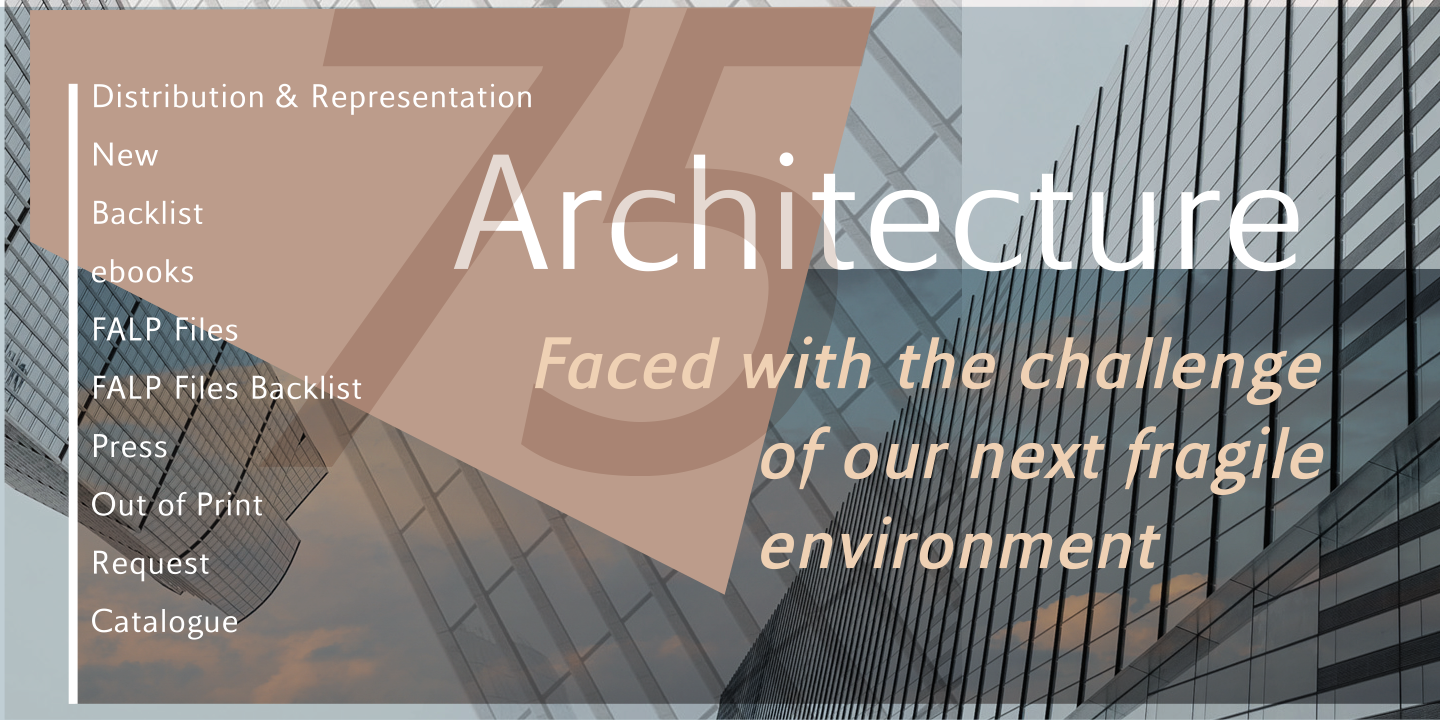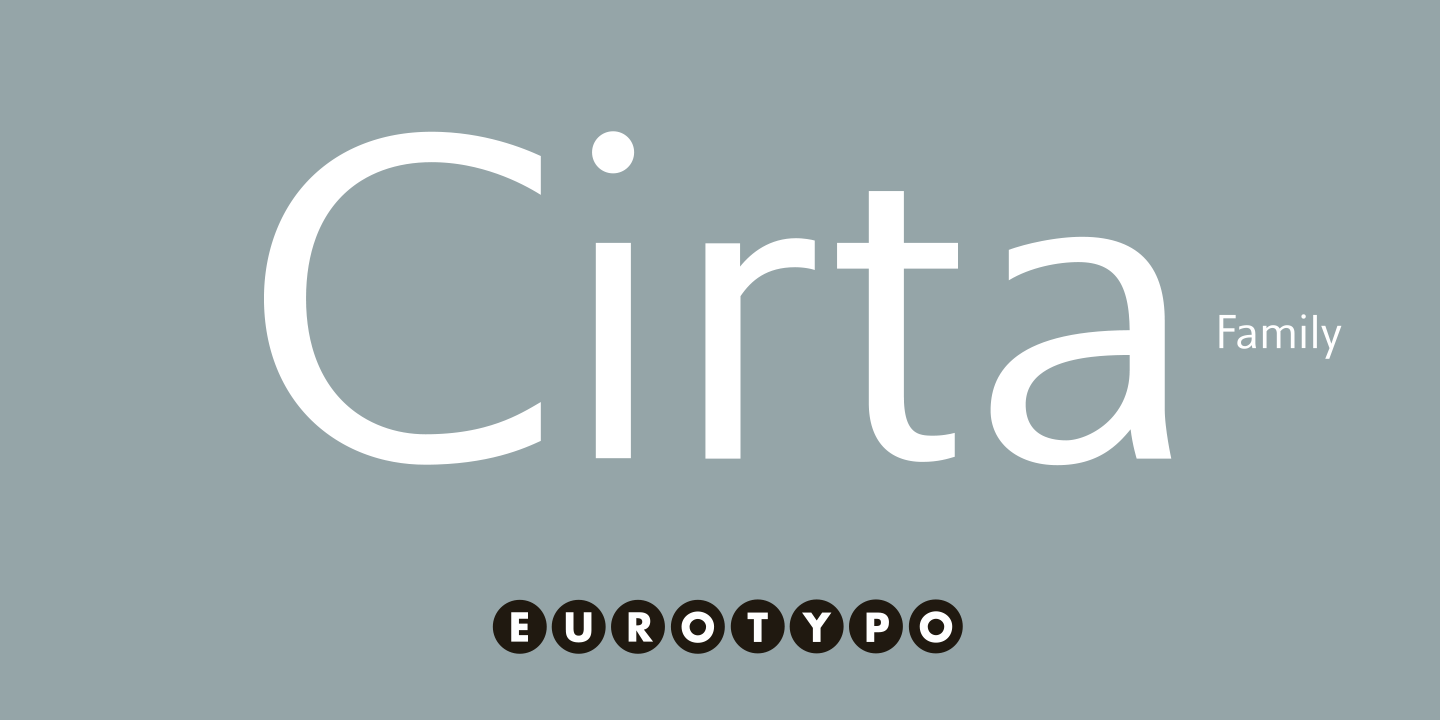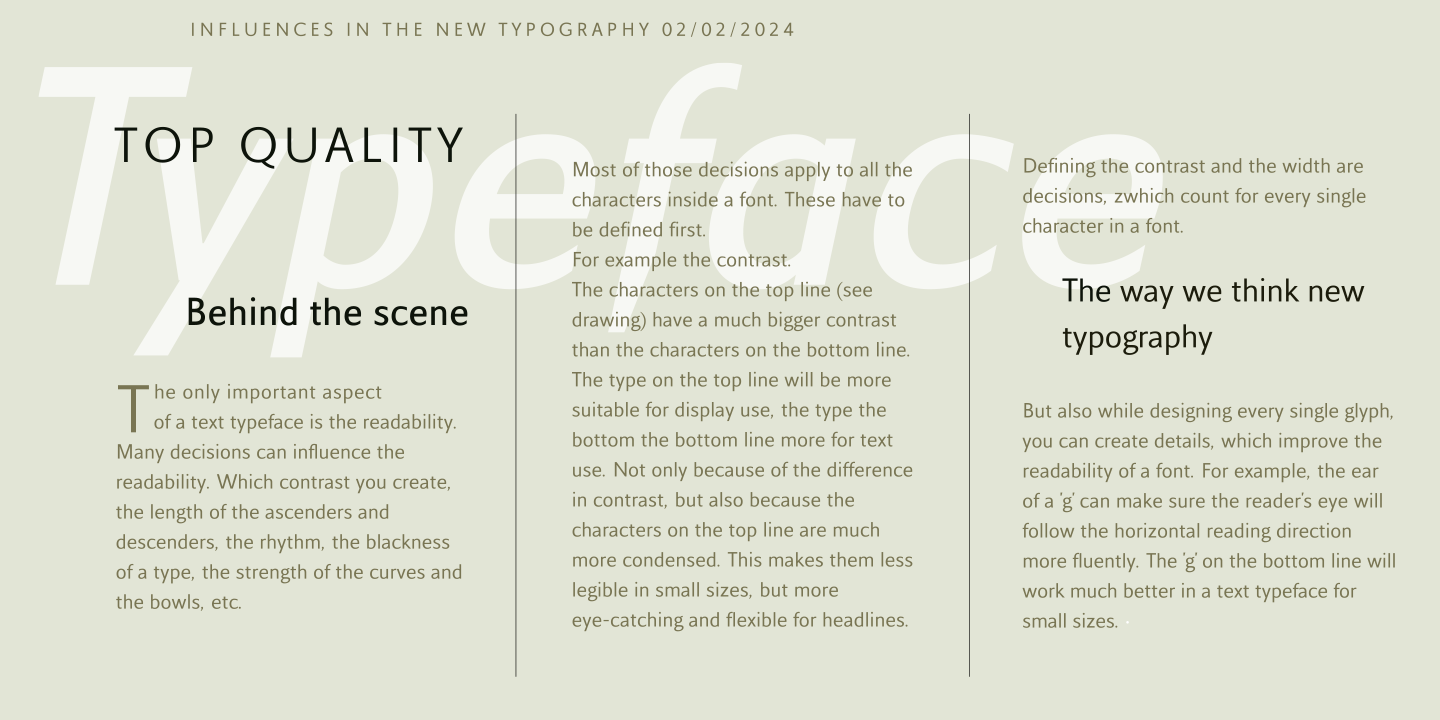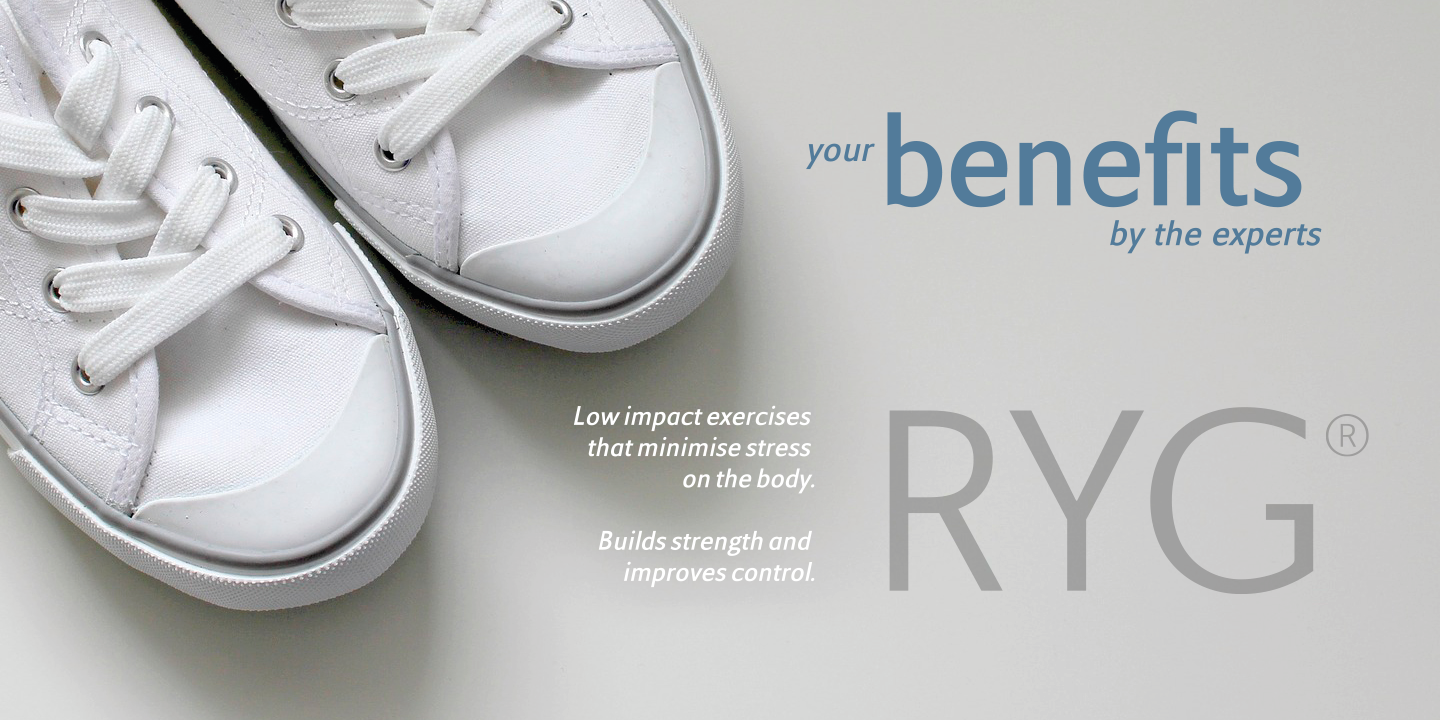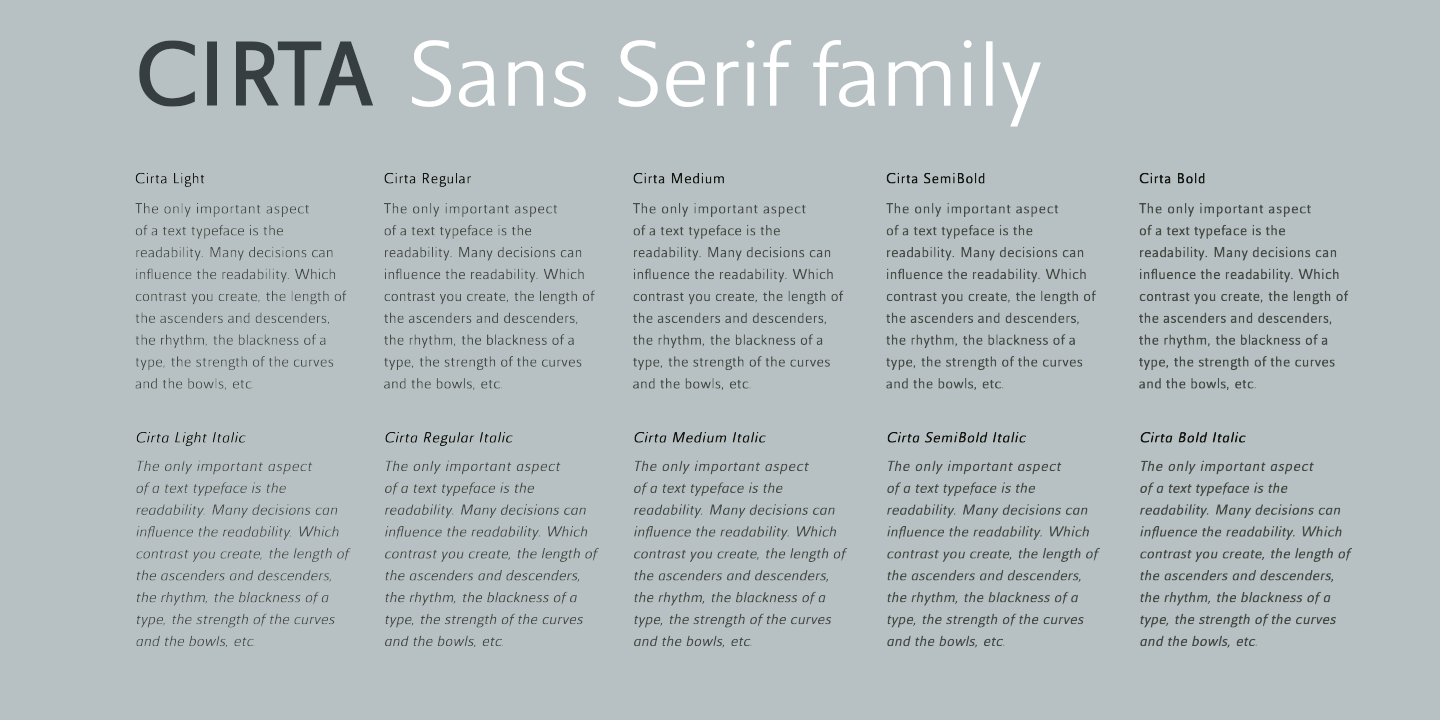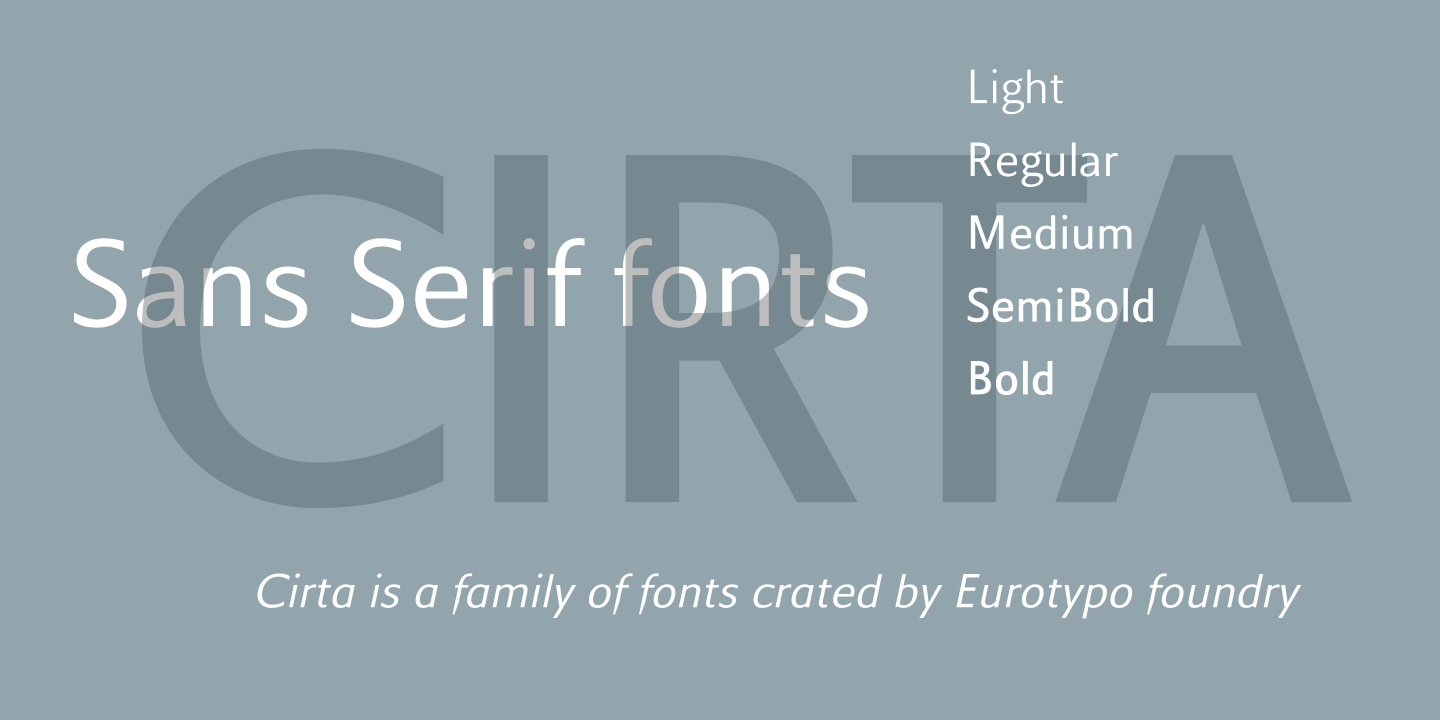
Cirta
A Dynamic Roman-Inspired Sans
Cirta is a sans-serif typeface family designed to make an impression. With five weights and matching italics, it delivers the perfect balance of versatility, personality, and visual performance. Its uppercase letters, inspired by the timeless proportions of ancient Roman inscriptions, bring strength and elegance to your layouts. The interplay of wider and narrower forms creates a dynamic rhythm that enhances readability and keeps the eye engaged.
Engineered for Outstanding Legibility
The lowercase letters, crafted with medium-length ascenders and descenders, ensure outstanding legibility even at small sizes—making Cirta an ideal choice for everything from bold headlines to extended body text.
Advanced OpenType & Math Support
Cirta also comes packed with refined typographic features, including alternate glyphs, standard and discretionary ligatures, full numeral sets—numerators, denominators, superscripts, and subscripts—and a broad range of mathematical symbols. It’s everything you need to build clean, professional, and visually compelling designs across any creative project.
Language Support
Over 100 Latin-based languages, including Western, Central, South-Eastern Europe, African and Oceanic regions